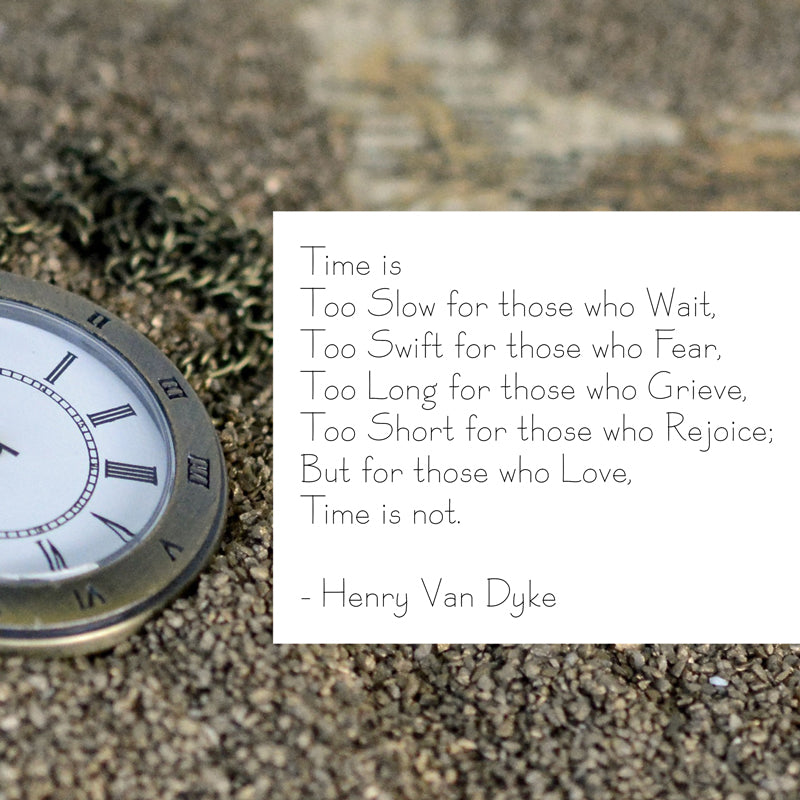
Single Line Font "SLF Timepiece"
Timeless.  Classic.  Understated.
Single Line Fonts has done it again - SLF Timepiece will become one of your top go-to choices when you need a stylish, understated font for your projects.  Ideal uses include engraving, woodworking, card making, stationery, wedding invites, acrylic, and so much more.